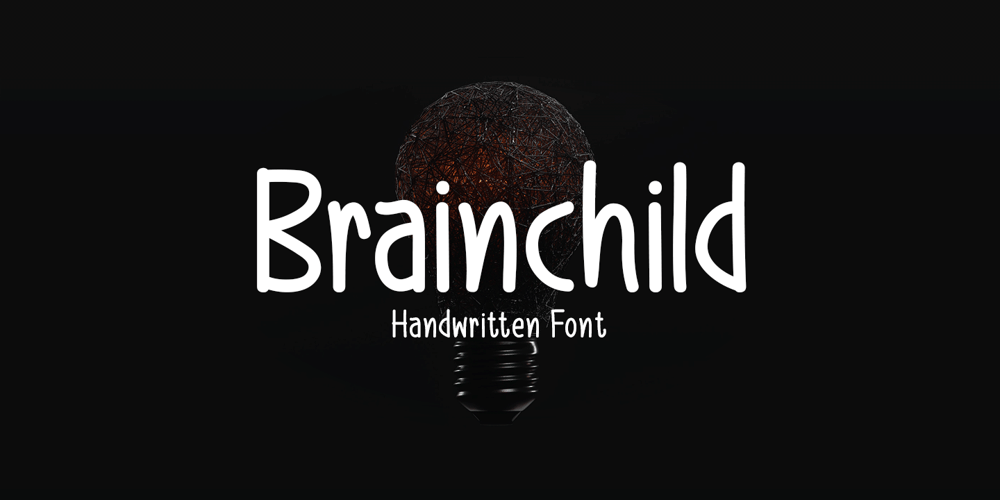
Brainchild
Brainchild font
Brainchild Font Family was designed by Md Shohail Bhuian and published by Seemly Fonts. Brainchild contains 1 styles and family package options. An exceptional handwritten typeface with simple lettering is called Brainchild. Add it to your original ideas to see how it helps them stand out since it can be readily suited to a huge range of projects.